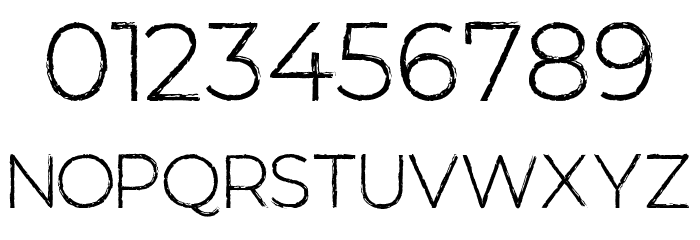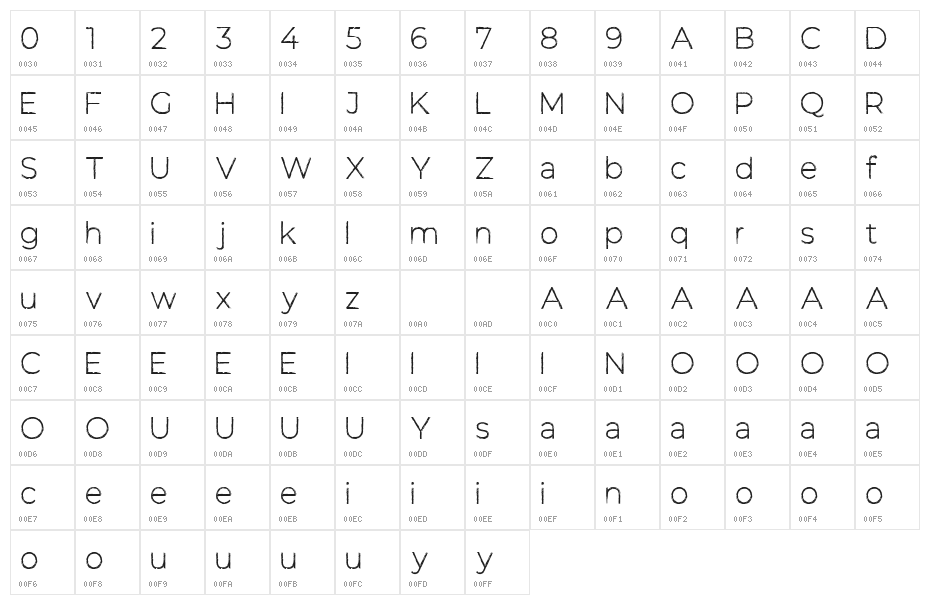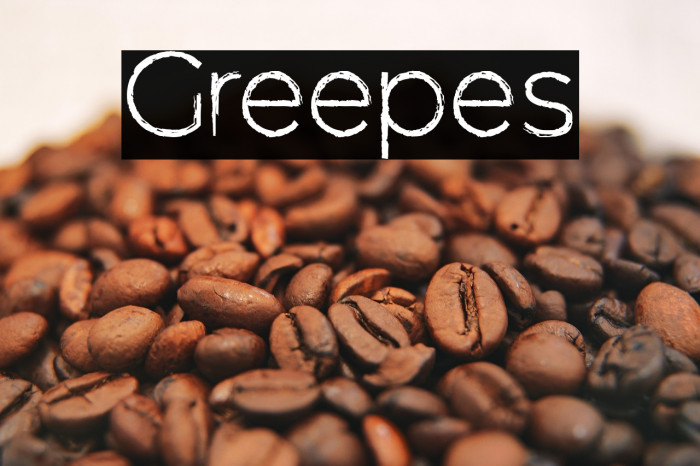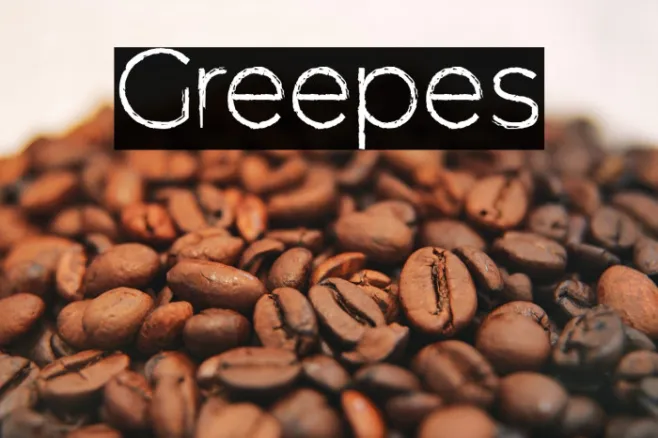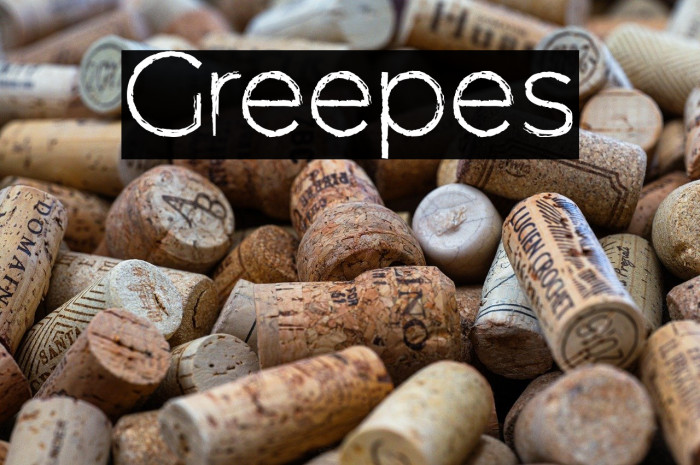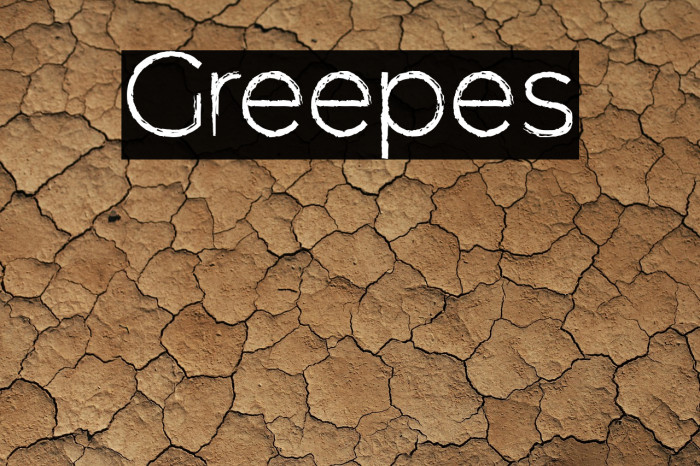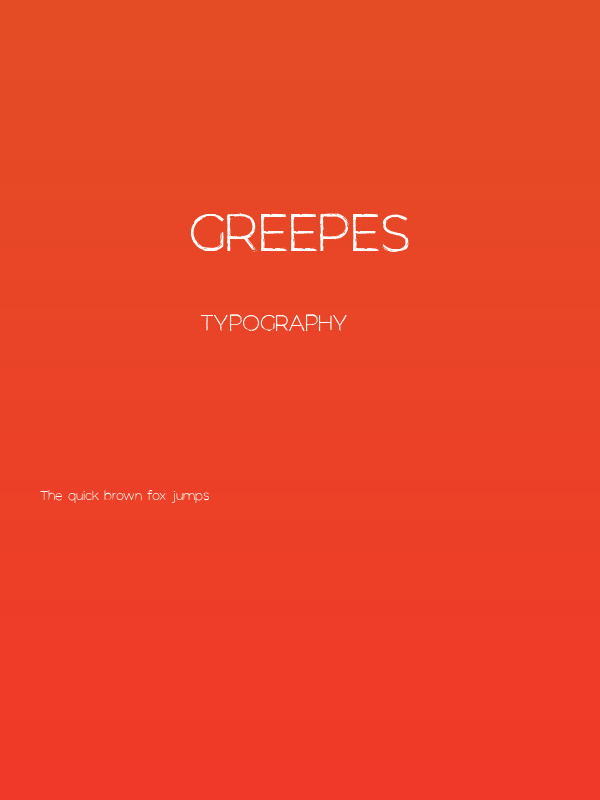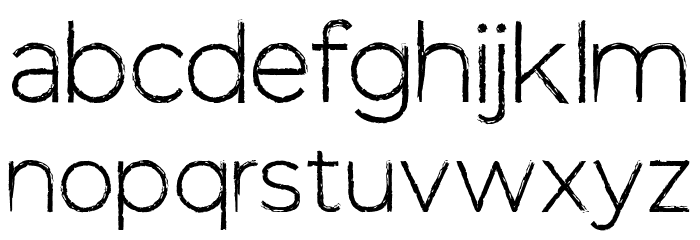
Greepes Font
Greepes Description
This font features a unique, hand-drawn aesthetic with a slightly rough texture, giving it a casual and artistic feel. The characters are evenly spaced, maintaining a consistent width throughout. The uppercase and lowercase letters are well-proportioned, with a slight variation in stroke width that adds to its handcrafted charm. The numerals and special characters follow the same style, ensuring uniformity across all glyphs. This font's distinct appearance makes it suitable for creative projects that require a personal touch.
| Proposed Projects | Ideal for greeting cards, posters, branding, and creative projects that benefit from a personal, handcrafted look. |